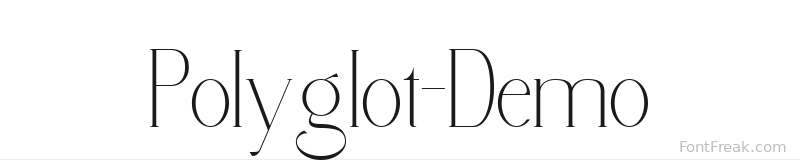
Polyglot-Demo
About Polyglot-Demo
Polyglot-Demo by MJType is a striking serif font that effortlessly combines modern sophistication with a touch of classic elegance. Released as freeware in 2021, this font showcases a balanced stroke weight and refined contrast, resulting in a visually appealing typeface suitable for various design applications. The letterforms exhibit graceful curves and pointed serifs, bringing an air of refinement and readability to any project. The spacing between characters is thoughtfully designed, allowing for optimal legibility while maintaining a cohesive flow.
This versatile font is ideal for a range of use cases, including wedding invitations, where its elegant style can enhance the romantic ambiance. It also shines in branding materials for small businesses, such as upscale cafes or boutiques, effectively conveying a sense of quality and attention to detail. Additionally, Polyglot-Demo is perfect for movie posters, lending an artistic flair that can attract attention and convey mood. Content creators looking to elevate their digital publications will find this font provides an element of sophistication that enhances visual storytelling.
Targeted towards graphic designers, small business owners, and content creators, Polyglot-Demo offers a unique aesthetic that can adapt to different themes and styles. Its ability to evoke emotion while remaining functional makes it a valuable addition to any designer's toolkit.